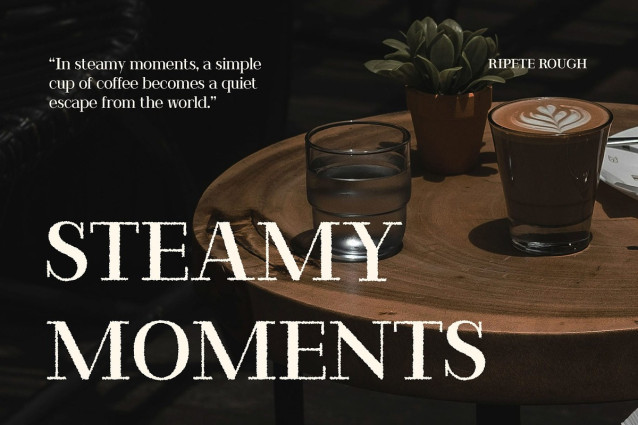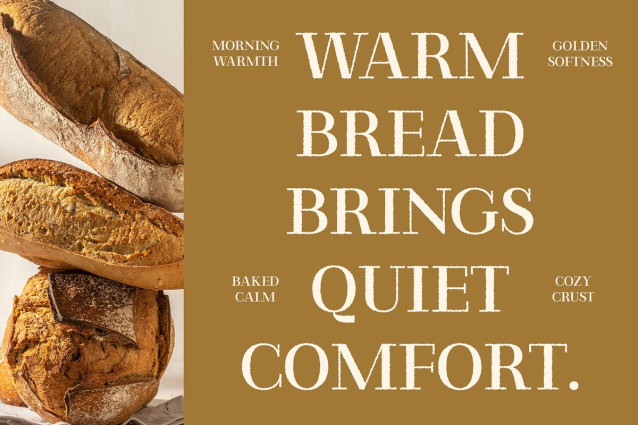
Ripete Rough Font
Ripete Rough Font is a modern classic serif font that brings together refined sophistication and handcrafted charm. It features elegant, balanced letterforms rooted in traditional serif design—enhanced with a unique rough texture that adds depth, warmth, and a subtle vintage feel.
Graceful Shapes with Balanced Proportions Every character in Ripete Rough is thoughtfully crafted to maintain harmonious proportions and graceful curves. The classic serif structure gives the font a formal, polished appeal, making it ideal for designs that require a touch of elegance and clarity.
Rough Effect for a Distinctive Character What sets Ripete Rough apart is its soft yet striking rough texture. This organic finish evokes the feel of letterpress or worn print, infusing each letter with character and charm. It adds an artistic edge to the refined form—perfect for designs that want to blend tradition with a creative twist.
Versatile for Elegant and Artistic Use Ripete Rough works beautifully across a wide range of applications—from editorial spreads, luxury branding, and packaging, to event invitations and artistic merchandise. Its textured elegance makes it particularly well-suited for projects that seek a sophisticated yet human touch.